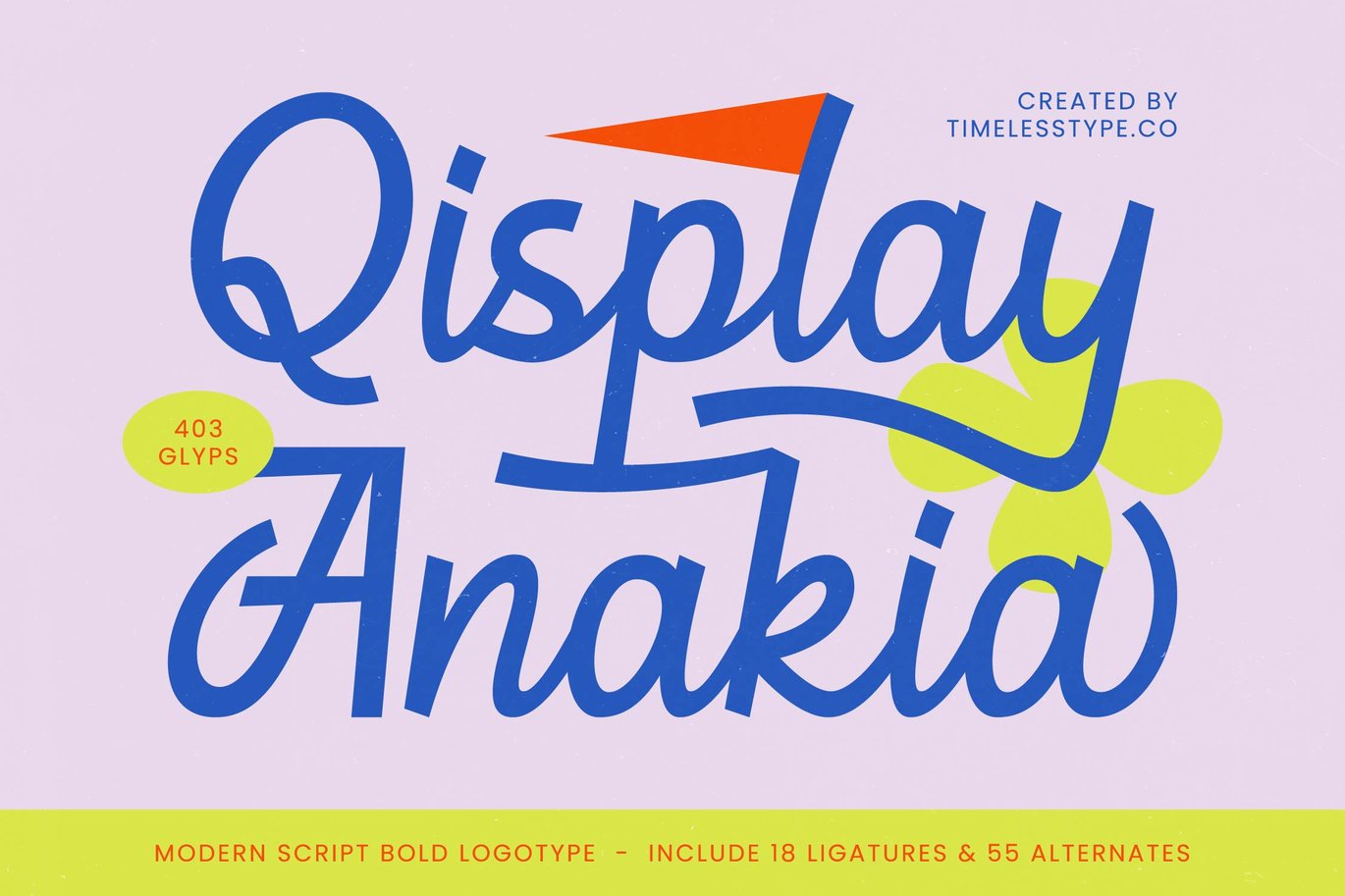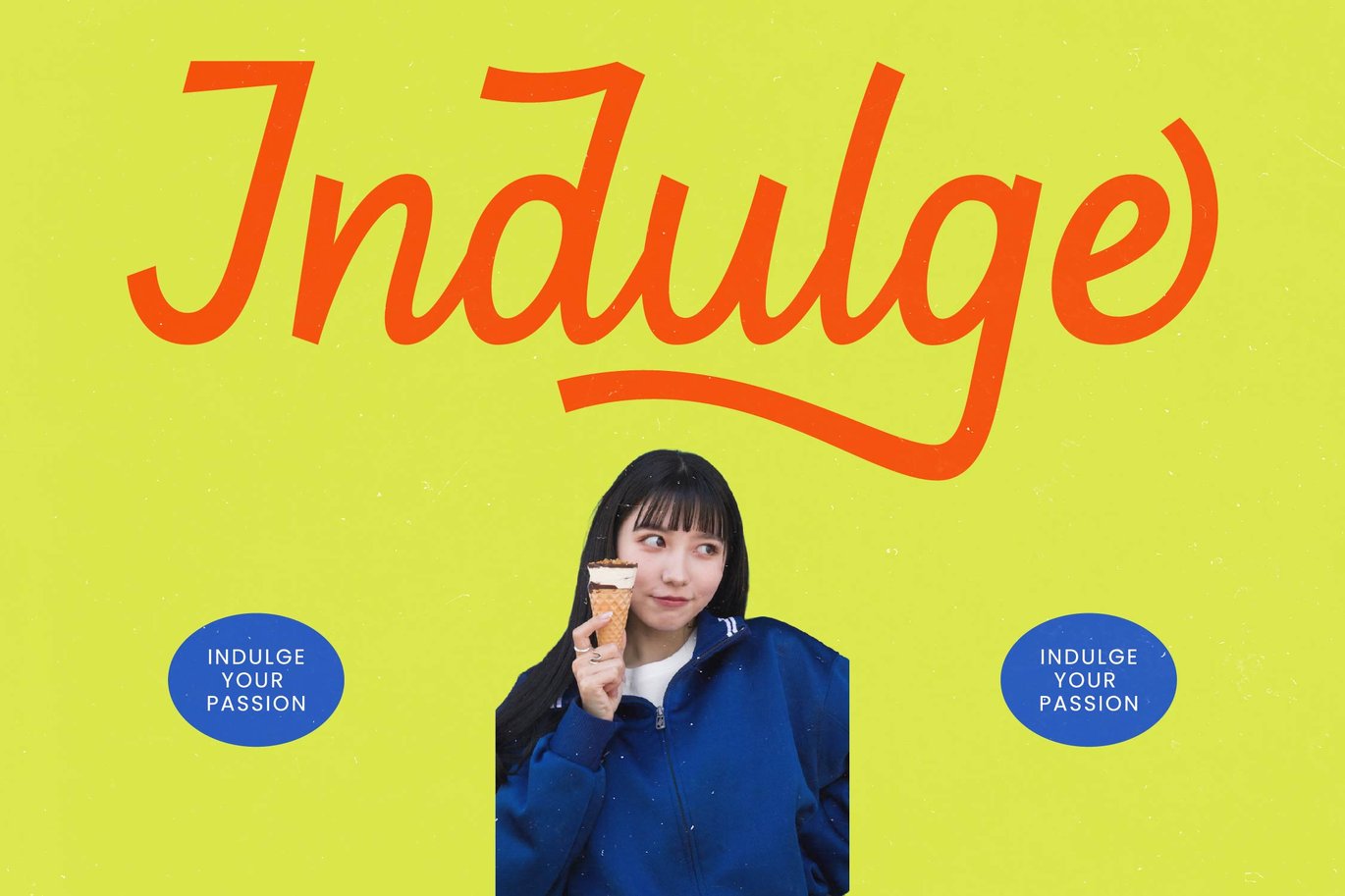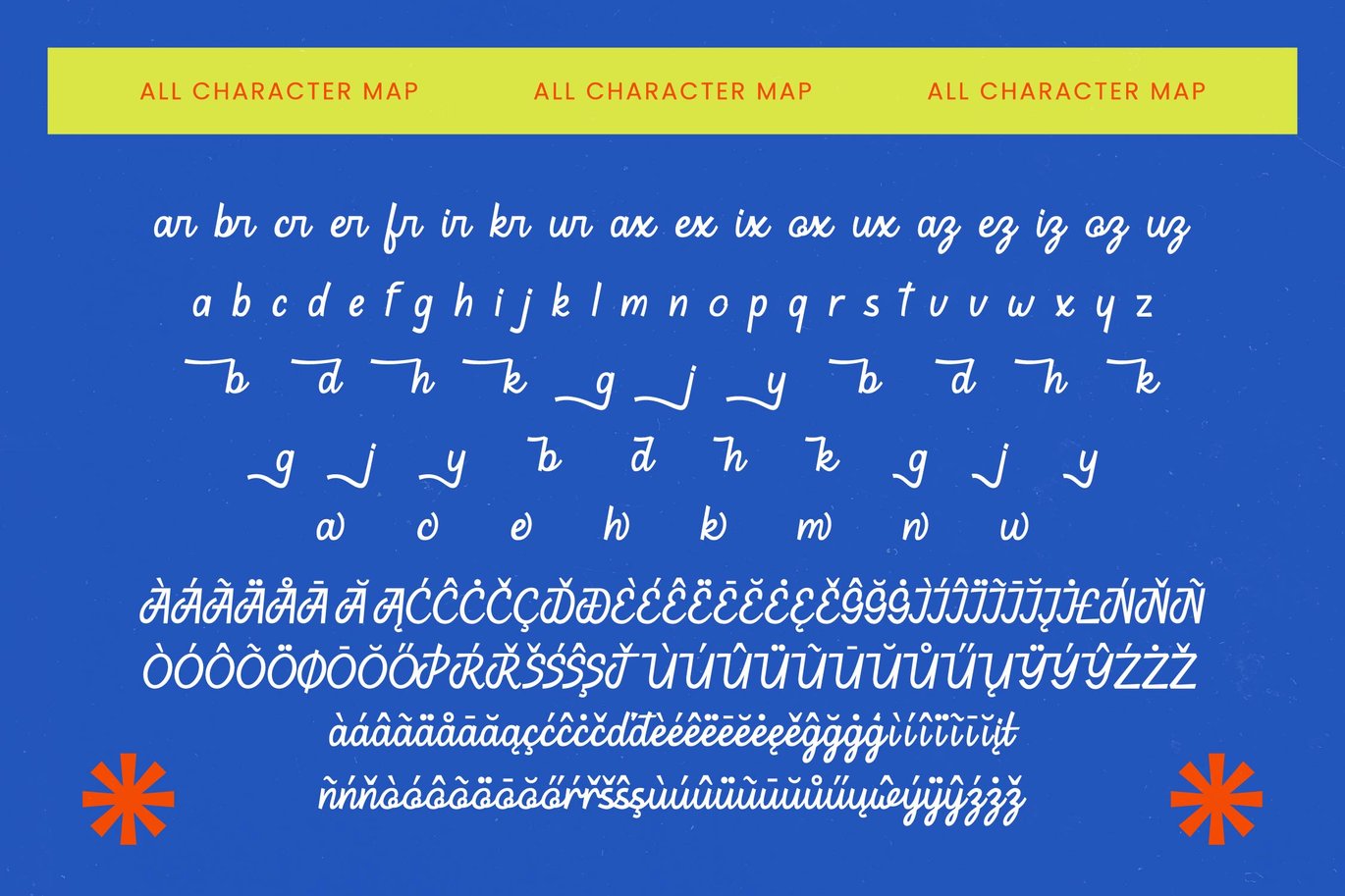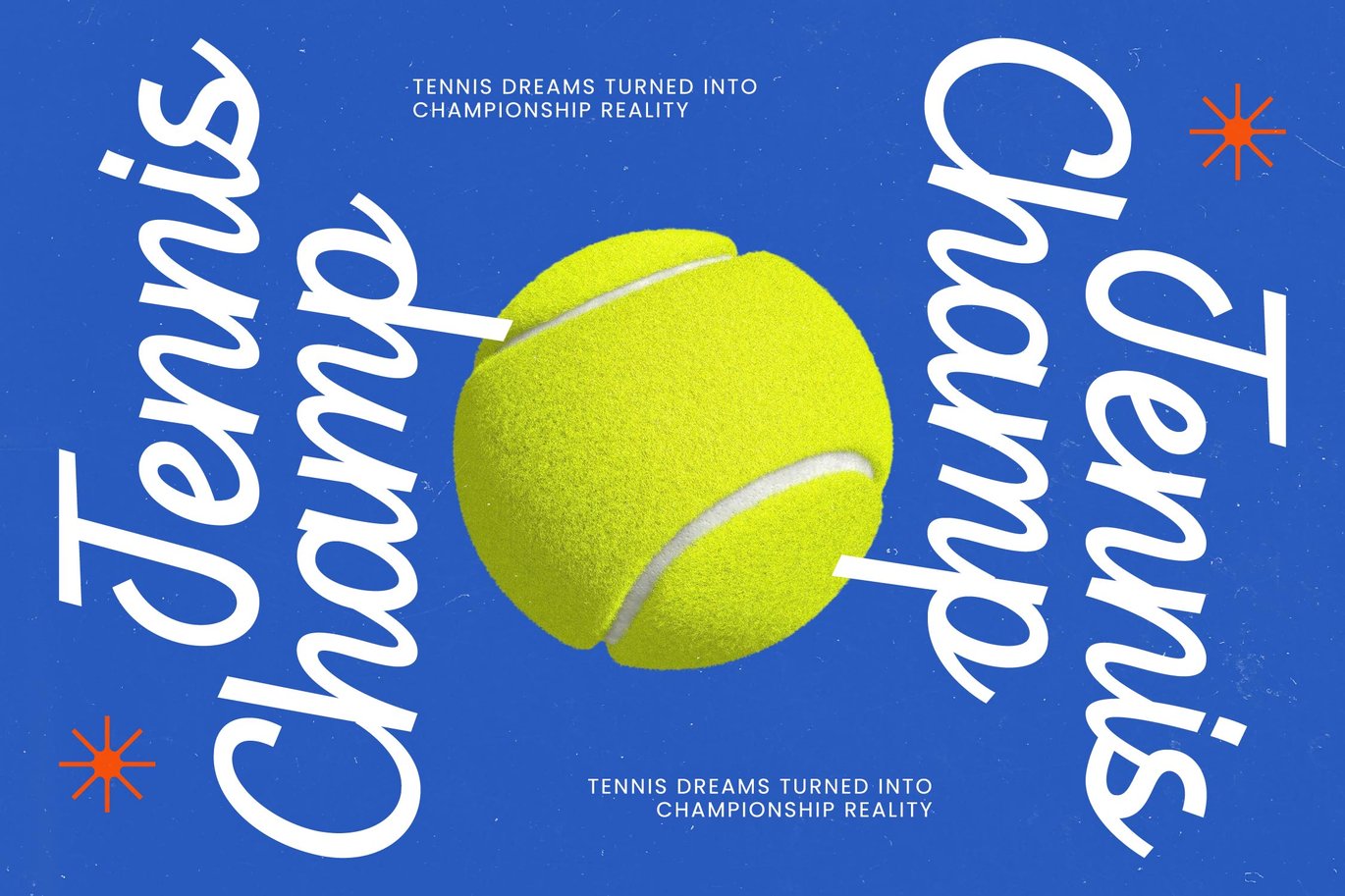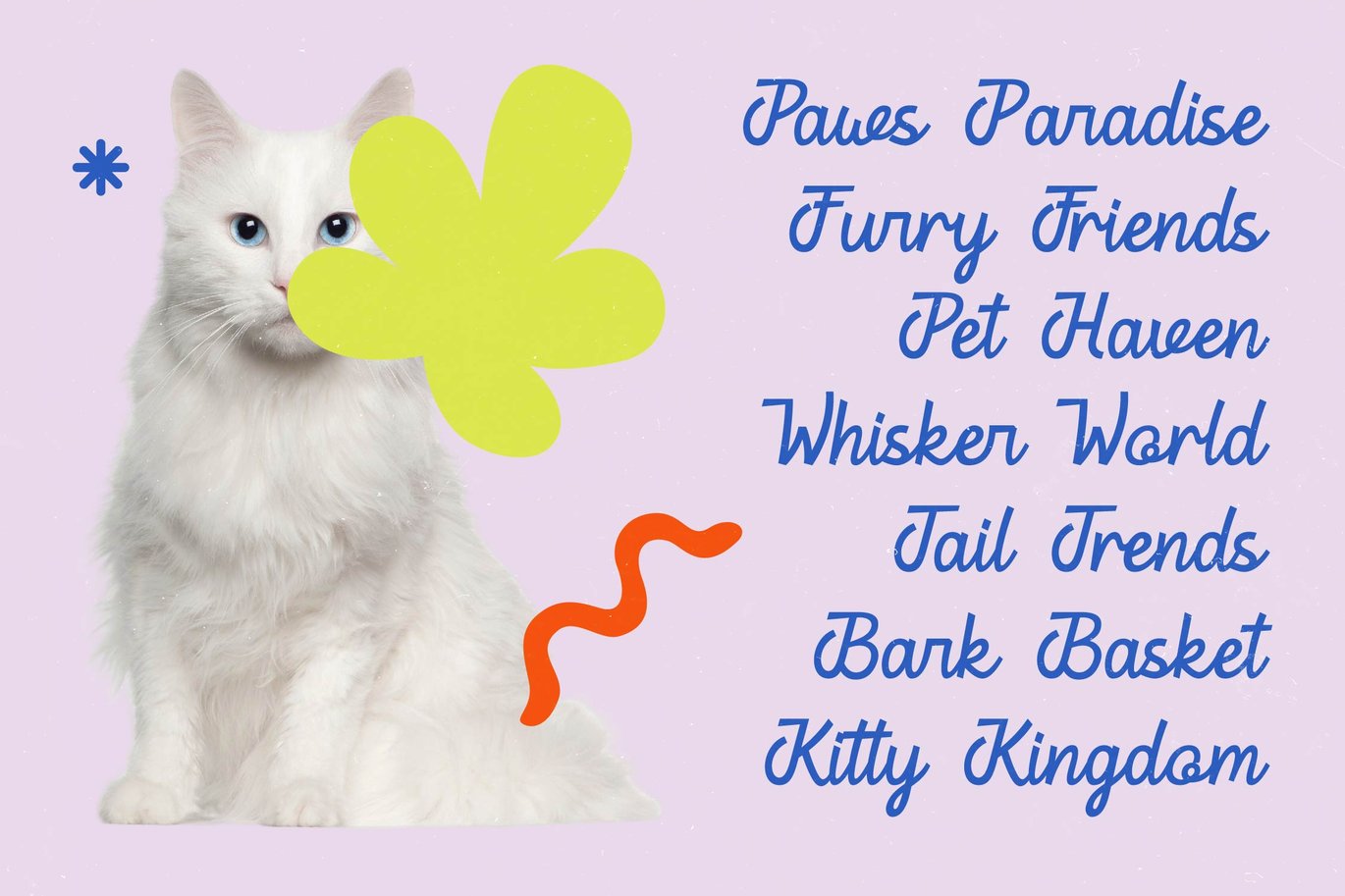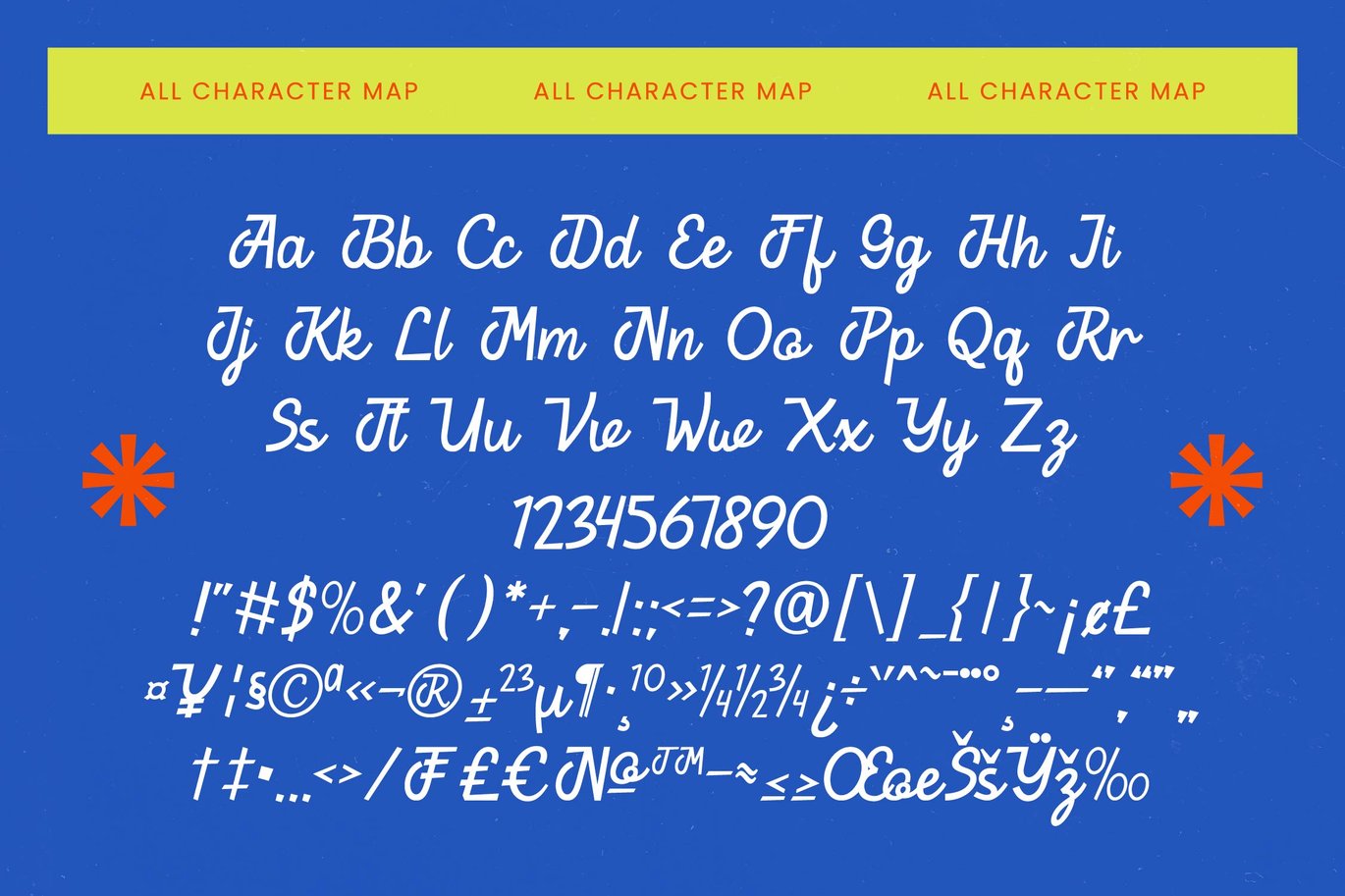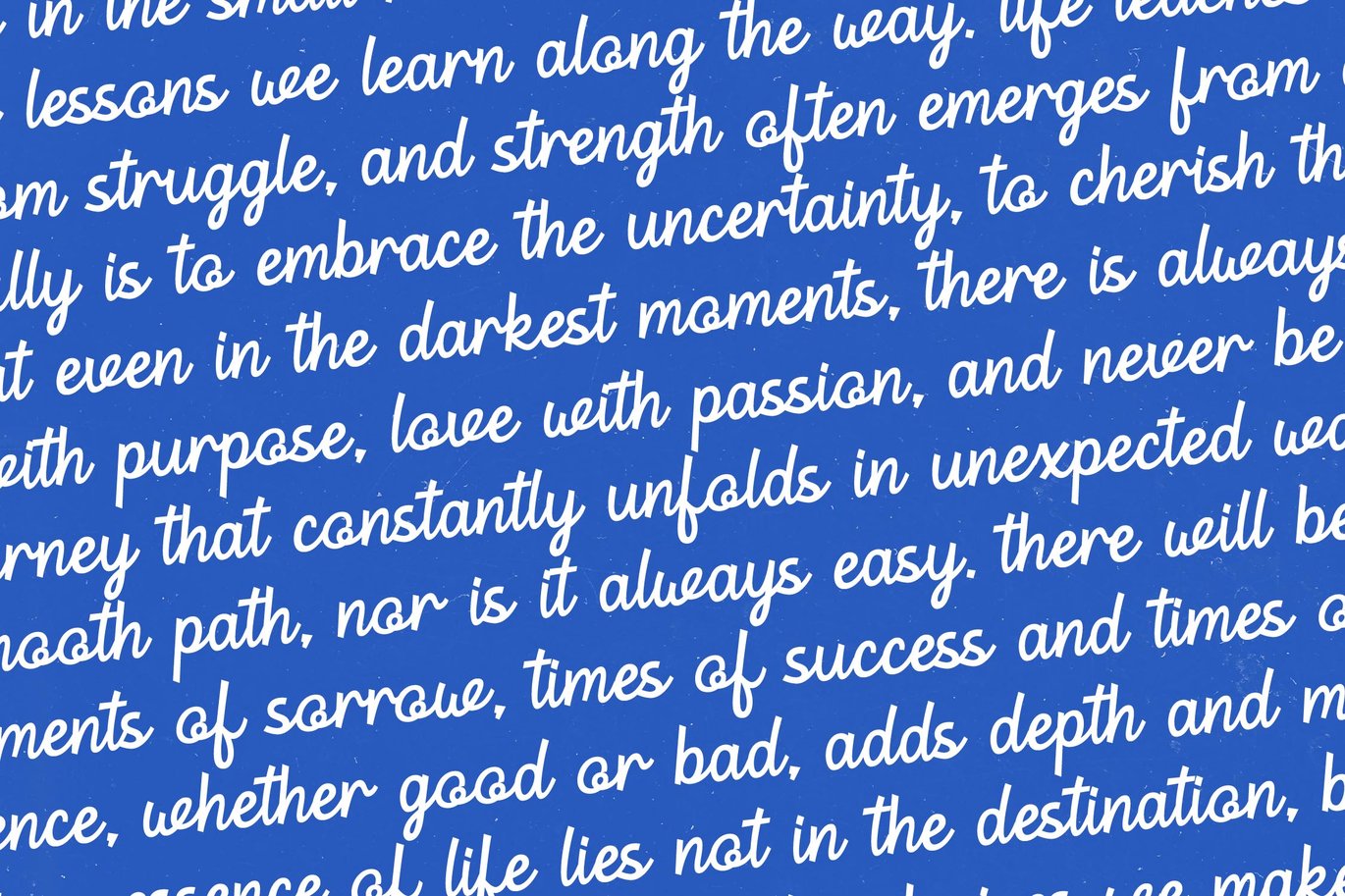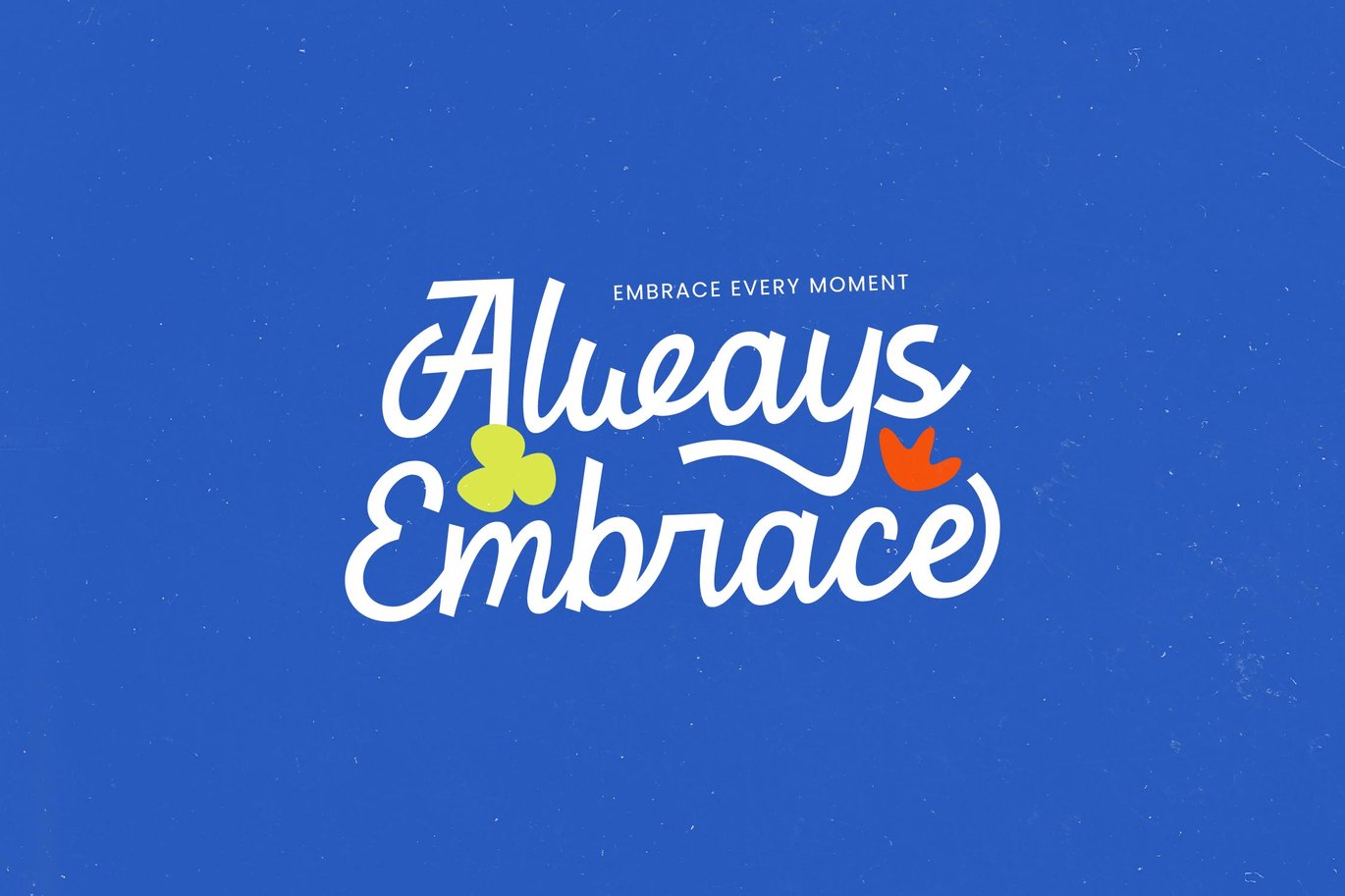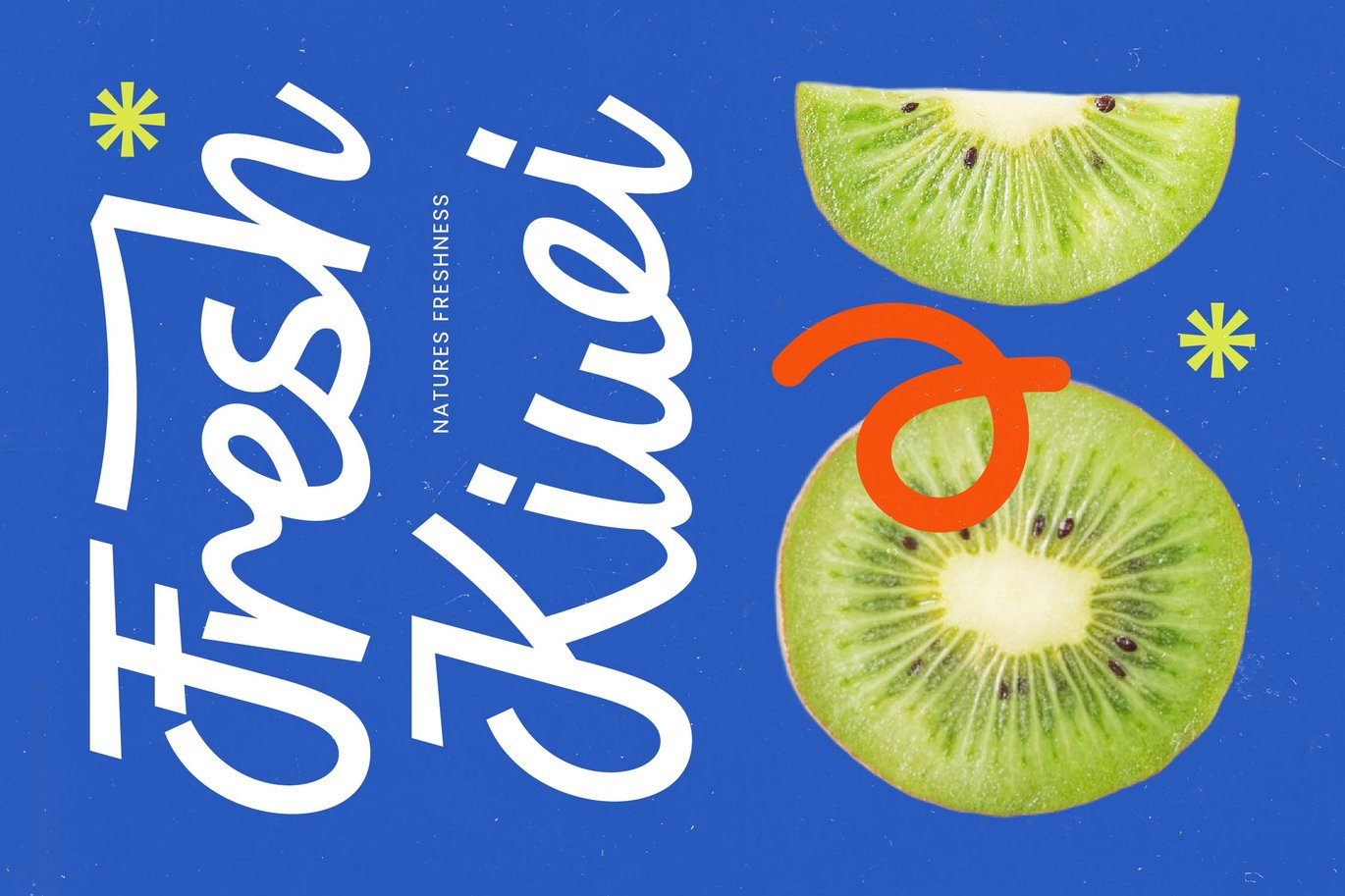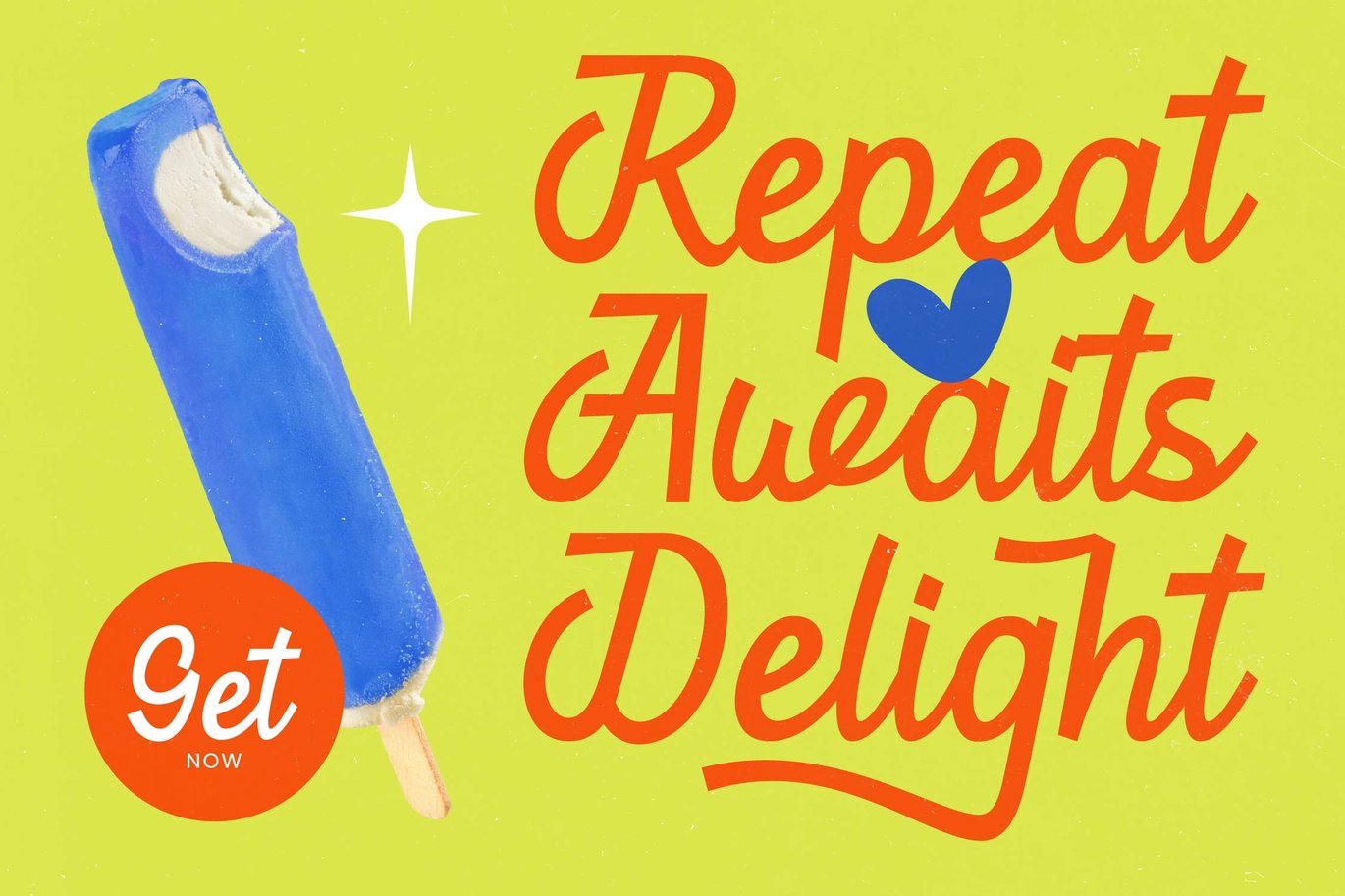
Qisplay Anakia - Modern Script
Display Anakiav is a modern script bold logotype font designed with a playful yet confident character. Its thick, flowing strokes and smooth curves create a dynamic handwritten look that is perfect for brands seeking a fun, energetic, and approachable visual identity.
With 18 ligatures and 55 stylistic alternates, this font gives you full creative freedom to build unique typography compositions, custom logotypes, product labels, or expressive headlines. Display Anakiav blends retro-pop aesthetics with contemporary script styling, making it a versatile choice for lifestyle brands, beverage packaging, fashion merchandise, music posters, and social media graphics.
• Ligature
• Uppercase and lowercase
• Numbering and Punctuation